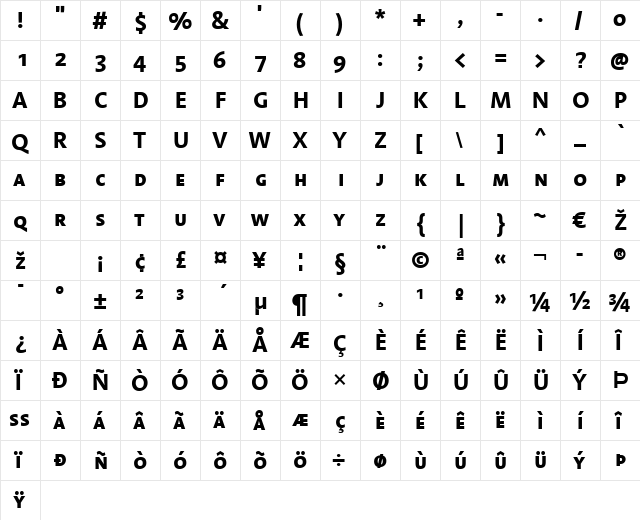
LTAromaSC Bold Regular Font Preview
LTAromaSC Bold Regular
LTAromaSC Bold Regular Font Details
| Designer | Tim Ahrens |
Design Context for LTAromaSC Bold Typeface
LTAromaSC Bold takes a measured approach to typography — its balanced proportions and neutral character make it a reliable workhorse for both digital and print work. The heavy weight commands attention and anchors typographic hierarchies.